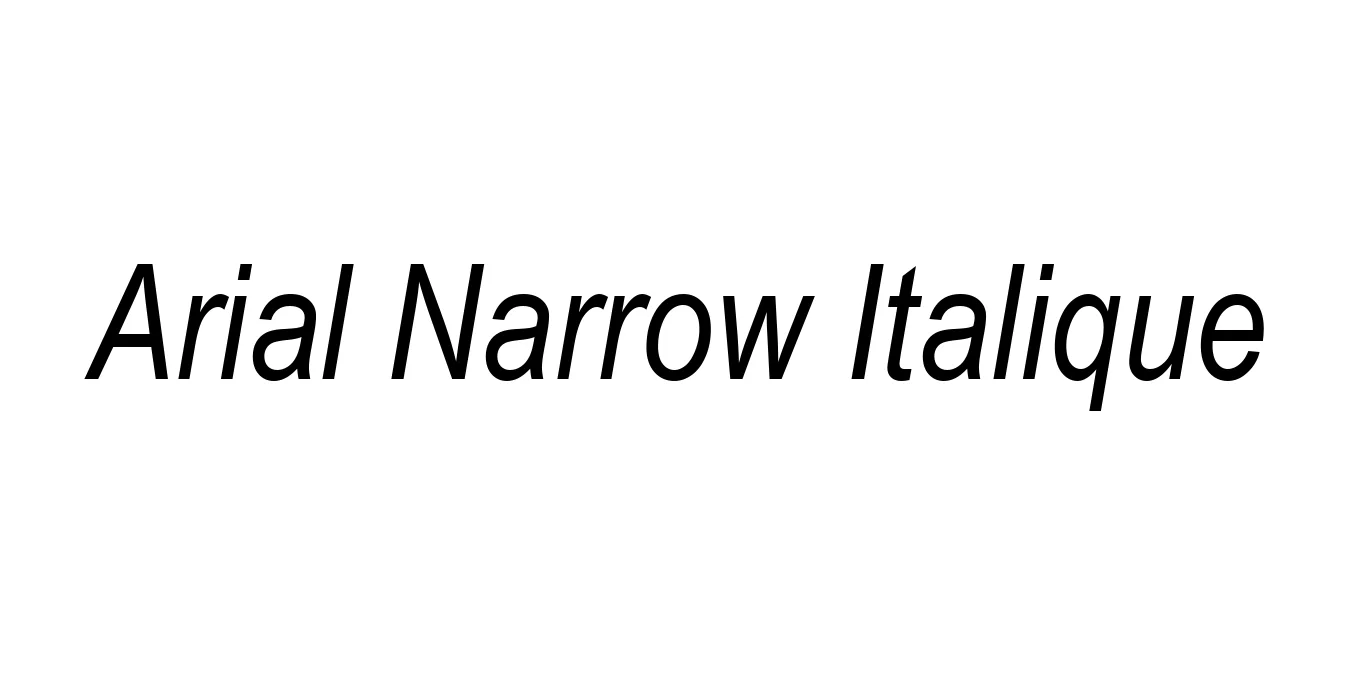
Arial Narrow Italique
Designed by Robin Nicholas, Patricia Saunders
| Category | Condensed Sans-Serif |
| Designer | Robin Nicholas, Patricia Saunders |
| Similar Fonts | Helvetica Condensed Italic, Roboto Condensed Italic, Univers 57 Condensed Oblique |
Arial Narrow Italique is a refined extension of the Arial family, specifically engineered by Monotype to provide a condensed alternative to the standard neo-grotesque forms. Originally designed to be metrically compatible with Helvetica Narrow, this typeface allows for significant horizontal compression, making it a staple for large-scale data sets and complex documentation where space is at a premium. The italic variant introduces a subtle oblique lean that provides necessary emphasis without disrupting the clean, functional aesthetic of the original parent font.
Technically, the letterforms exhibit a high x-height and consistent stroke weight, which are hallmarks of the Arial design philosophy. The 'Narrow' designation indicates a reduction in glyph width by roughly 20%, yet the counters remain sufficiently open to prevent visual congestion at smaller point sizes. The italicization maintains the structural integrity of the upright version, avoiding the calligraphic flourishes of true italics to preserve its utility as a technical, highly legible typeface for information-heavy digital and print environments.
Arial Narrow Italique Best Uses
Optimized for dense tables, charts, and spreadsheets where horizontal real estate is scarce.
Used for side-notes and legal disclaimers that require legibility in confined spaces.
Effective for maps and diagrams where labels must fit into tight margins.